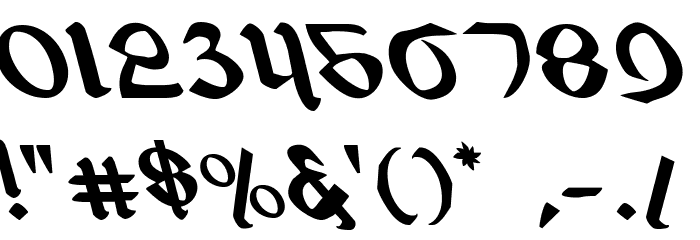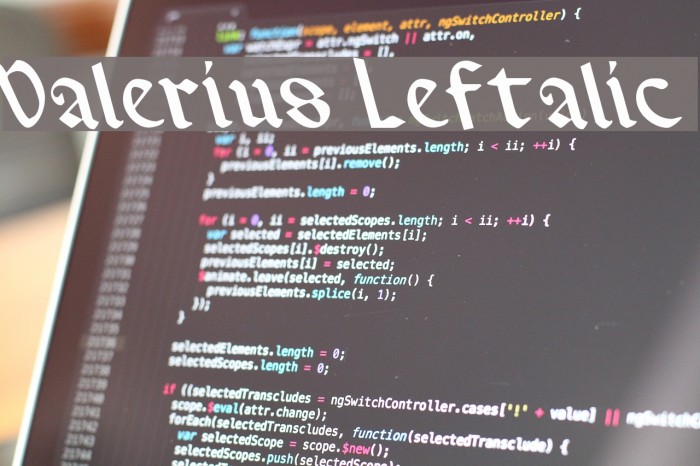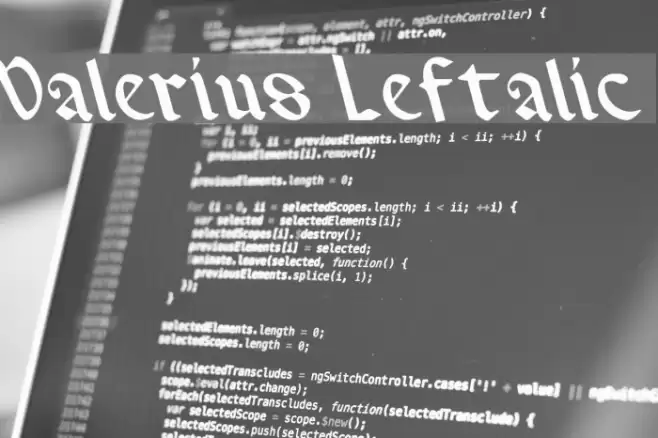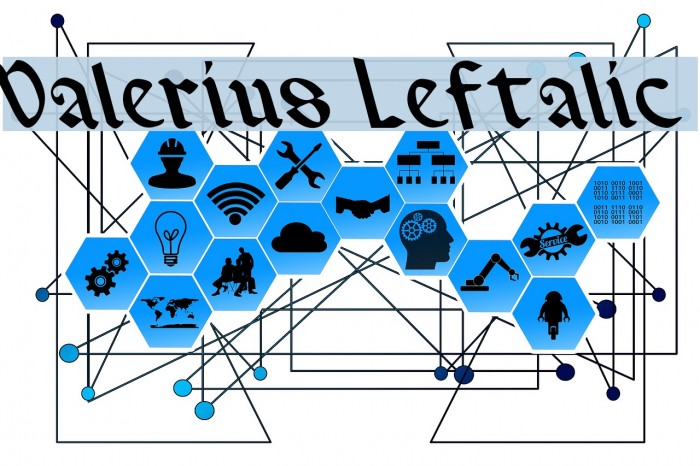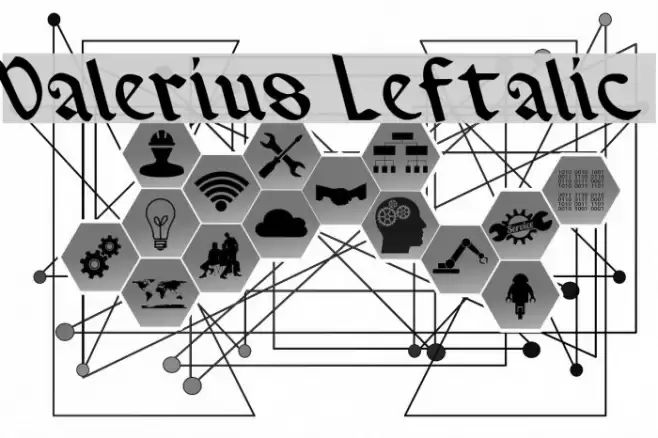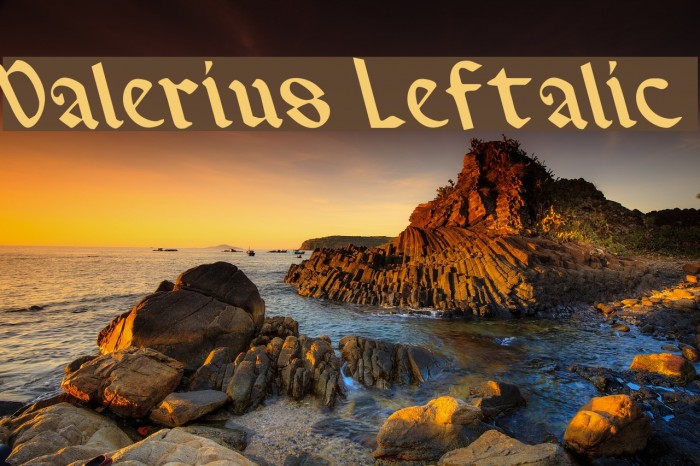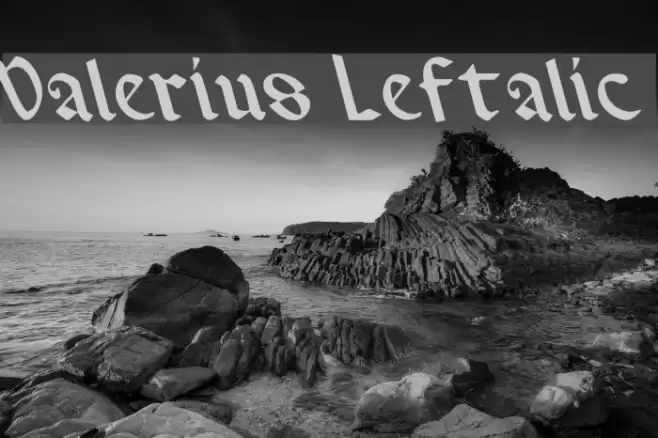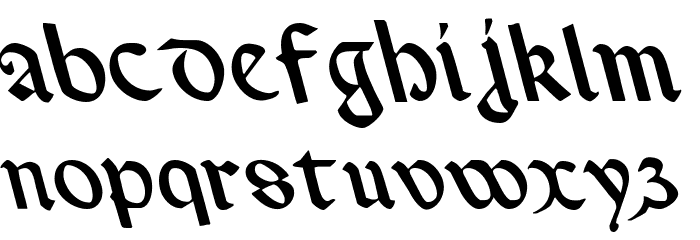
Valerius Leftalic Font
Valerius Leftalic Description
This font features a distinctive, angular style with a strong leftward slant, reminiscent of traditional calligraphic scripts. The characters are bold and dynamic, with sharp edges and a sense of movement. The uppercase and lowercase letters maintain a consistent style, with the uppercase being slightly more pronounced. Numbers and special characters follow the same stylistic cues, ensuring a cohesive look across all glyphs. The font's unique flair makes it stand out, offering a blend of historical elegance and modern edge.
| Use Case | Logos, Headlines, Posters |
| Proposed Projects | Ideal for projects requiring a dramatic and historical touch, such as event invitations, branding for luxury products, or artistic posters. |